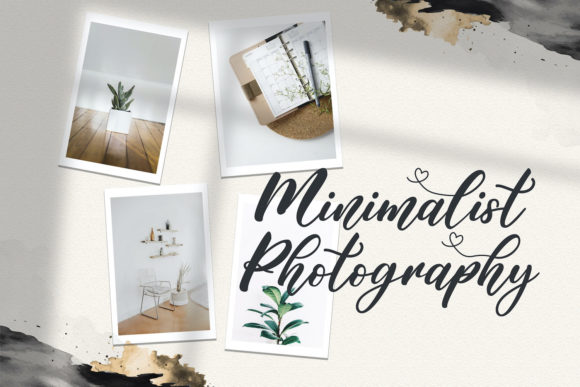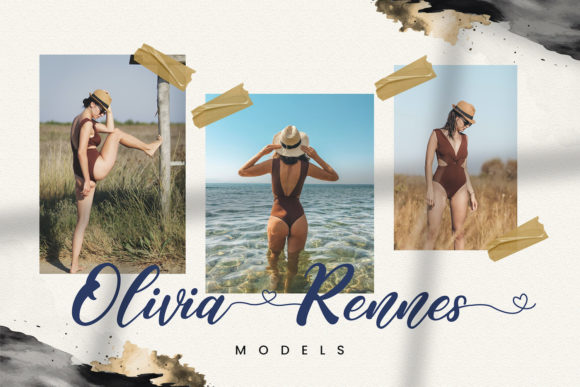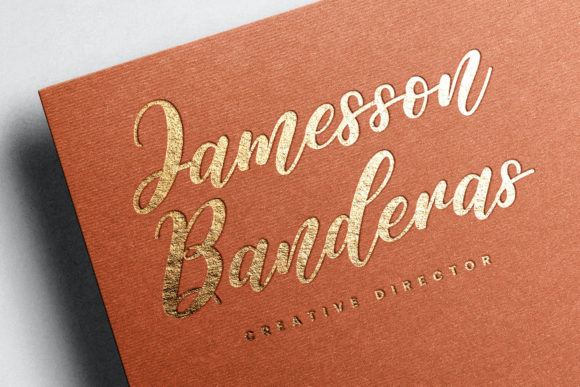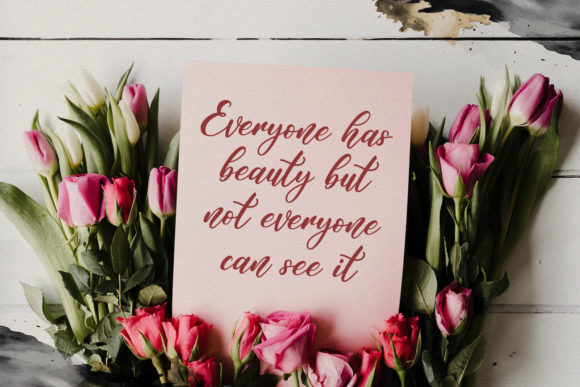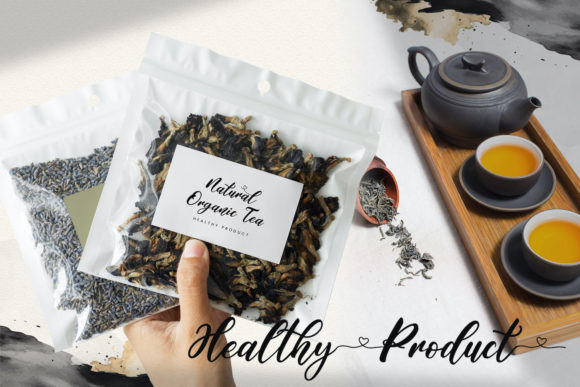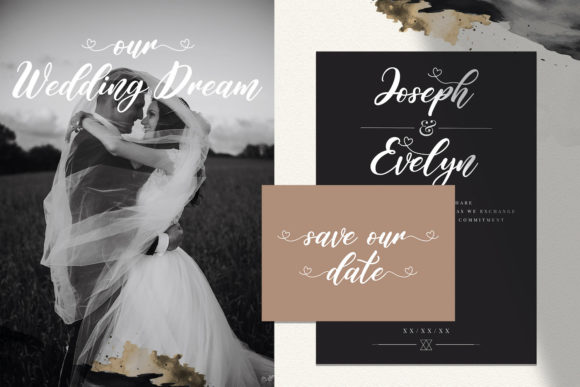
Hanyka Rathery Font: Elevate Your Designs with Elegance and Whimsy
In the world of typography, few fonts manage to strike a balance between elegance and playfulness. Hanyka Rathery Font is one such gem that combines romantic script elements with a whimsical rhythm, making it perfect for a variety of creative projects. Whether you’re a designer looking for a sophisticated touch or a crafter seeking the perfect font for your handmade goods, Hanyka Rathery is sure to captivate your audience.
The Essence of Hanyka Rathery
Hanyka Rathery is a romantic script font that exudes an air of elegance and sophistication. Its calligraphic influences are evident in its fluid strokes and graceful curves, yet it feels remarkably contemporary and fresh. This unique blend of classic and modern elements makes Hanyka Rathery incredibly versatile, suitable for a wide range of applications.
- Greeting Cards: Add a touch of whimsy and romance to your greeting cards, making them truly special for any occasion.
- Social Media Posts: Elevate your social media presence with beautifully crafted text that captures the essence of your message.
- Wedding Invitations: Make your wedding invitations unforgettable with Hanyka Rathery’s elegant and sophisticated charm.
- Crafting Projects: From scrapbooking to DIY crafts, Hanyka Rathery adds a classy touch to any handmade project.
Why Choose Hanyka Rathery?
- Unique Style: Hanyka Rathery offers a distinctive style that sets it apart from more common fonts, ensuring your designs stand out.
- Versatility: Its elegant yet playful nature makes it suitable for a wide range of projects, from formal to casual.
- Contemporary Appeal: Despite its classic influences, Hanyka Rathery feels modern and fresh, perfect for designers and crafters looking for a current aesthetic.
Hanyka Rathery Font is a beautiful addition to any designer’s or crafter’s toolkit. Its romantic script, whimsical rhythm, and elegant appearance make it perfect for a variety of projects. With its PUA encoding for easy access to glyphs and swashes, you can let your creativity shine. Whether you’re crafting a wedding invitation, creating a social media post, or working on a handmade project, Hanyka Rathery is sure to bring a touch of class and charm. So why wait? Explore the possibilities of Hanyka Rathery Font today and elevate your designs to new heights!